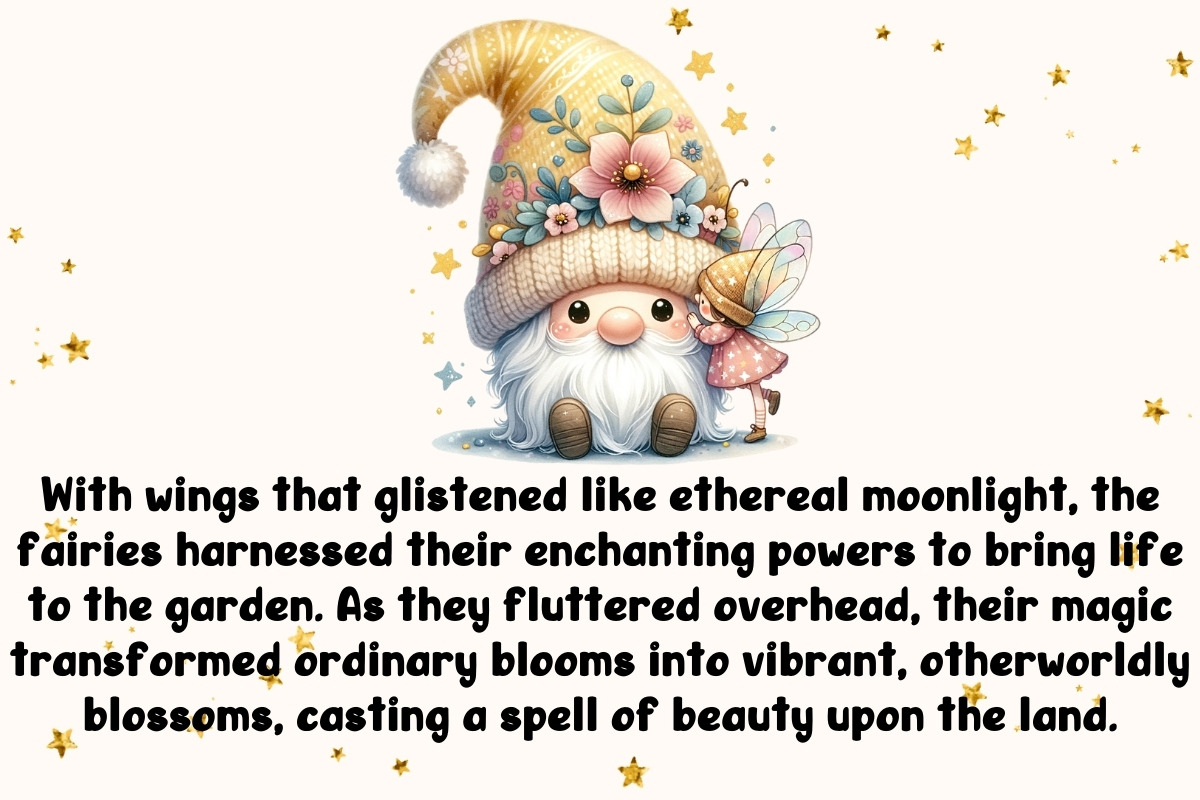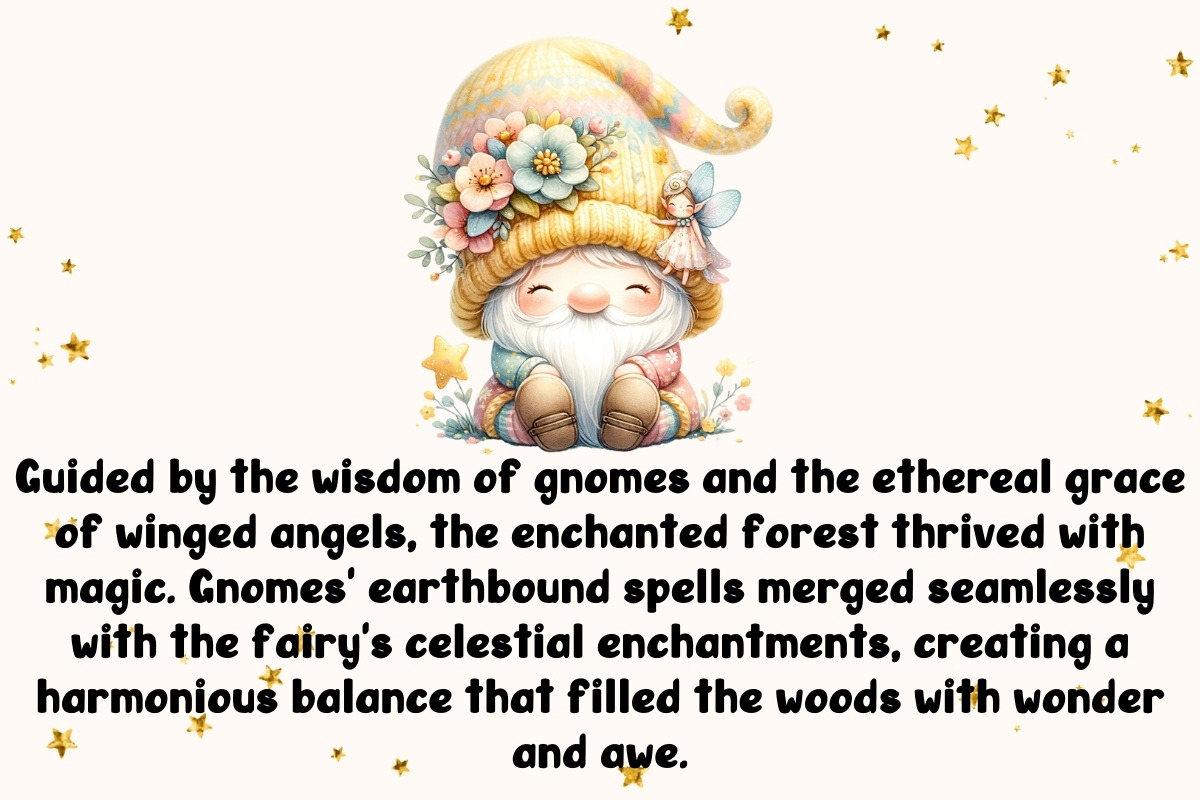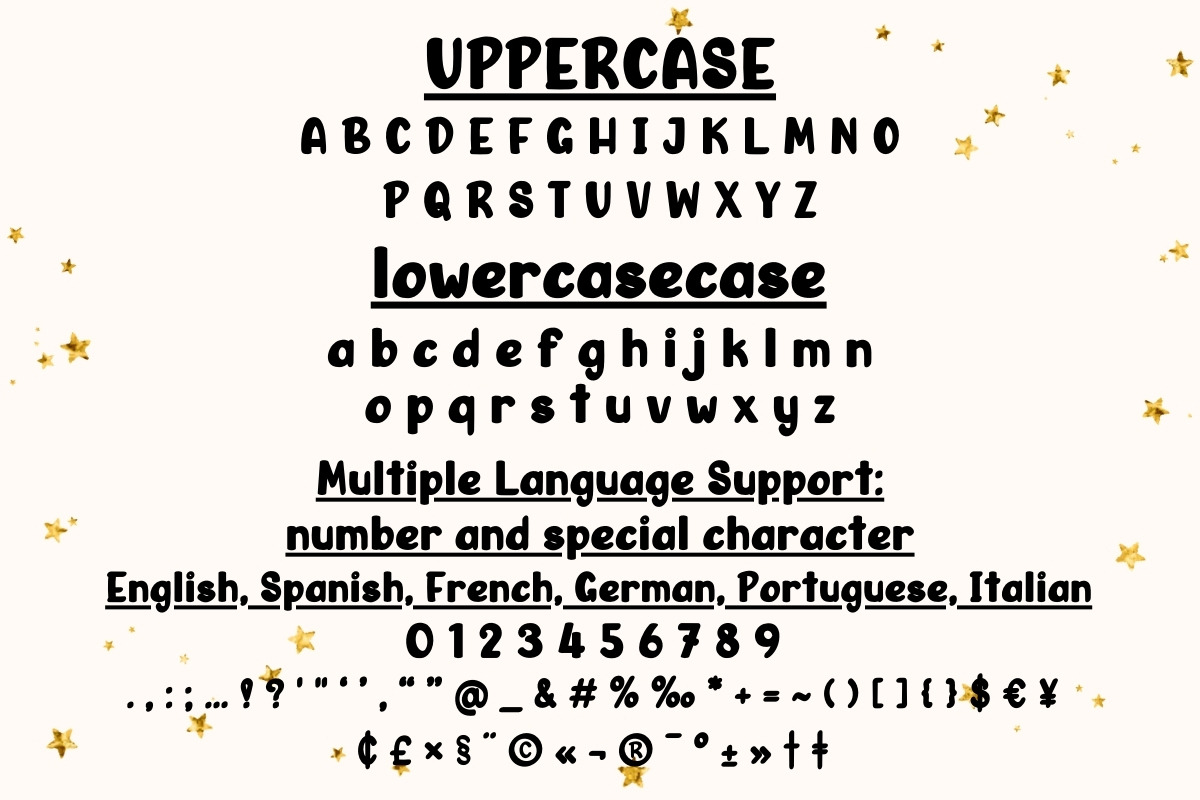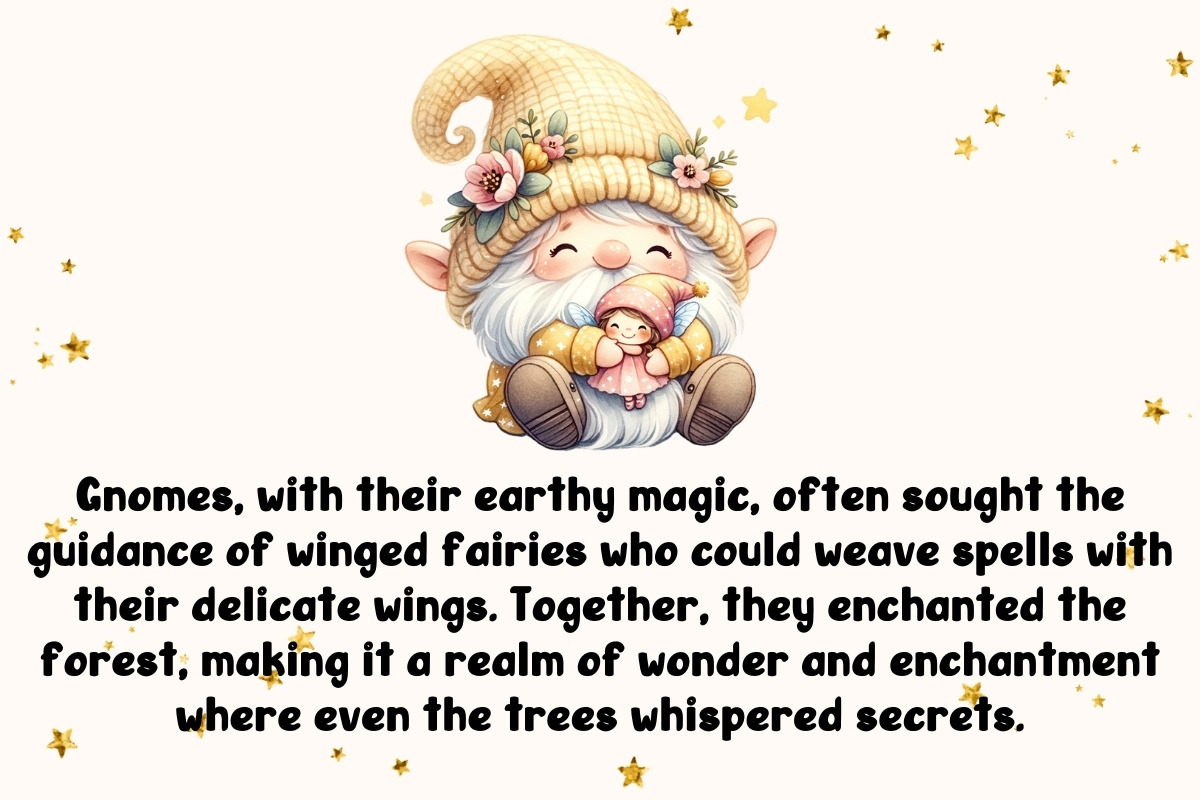
Magical Gnome Fairy - Handwritten
Introducing Magical Gnome Fairy Font Collection!
🌟 Embrace the enchantment of handwritten fonts with our captivating "Magical Gnome Fairy" collection. 🌟
Enchanting Elegance: Dive into a world of whimsy and wonder with our Magical Gnome Fairy font. Each letter is carefully crafted to bring a touch of enchantment to your projects. Whether you're creating invitations, greeting cards, or simply adding a dash of fairy-tale charm to your designs, this font is your key to a magical realm. Unleash your inner child with the Playful Pixie Script. Its curvaceous lines and playful loops evoke the spirit of mischievous gnomes and charming fairies. Perfect for crafting eye-catching logos, posters, or anything that needs a sprinkle of fairy dust.